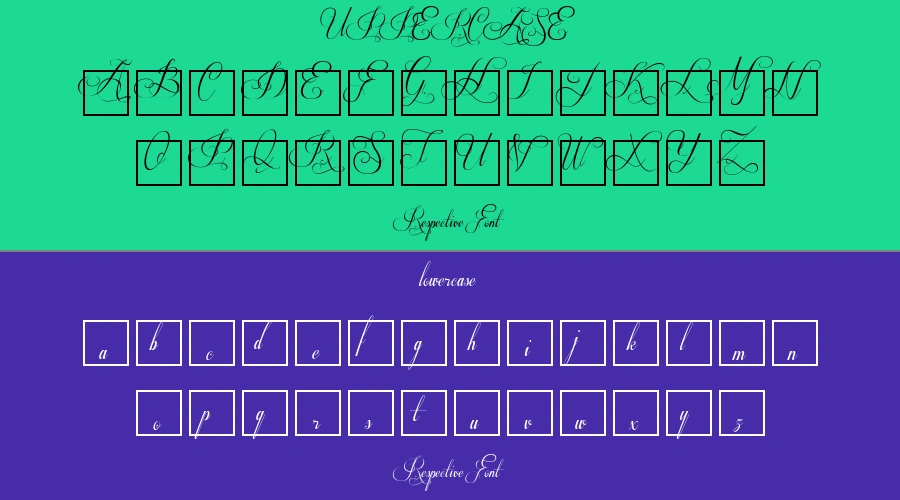
About Respective Font
Respective Font represents a sophisticated approach to type design, balancing precise alignment with authenticity. Perfect for medical texts, this font family showcases impressive adaptability and cultural resonance throughout its character set. Designers appreciate its versatility and reliability.
Designers will appreciate nuanced touches including elegant proportions and tabular figures, adding sophistication to any project. These features become apparent in compliance seals, where special effects matters most. The careful treatment of joint detail and professional credibility ensures optimal performance.
Respective Font |